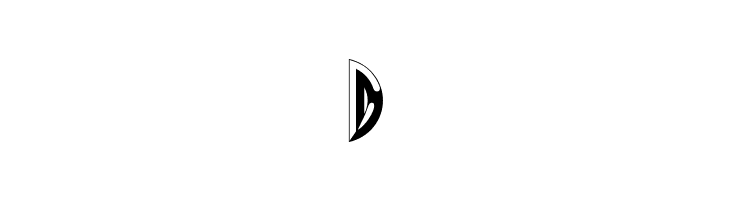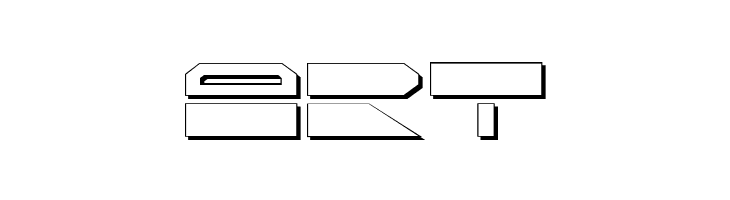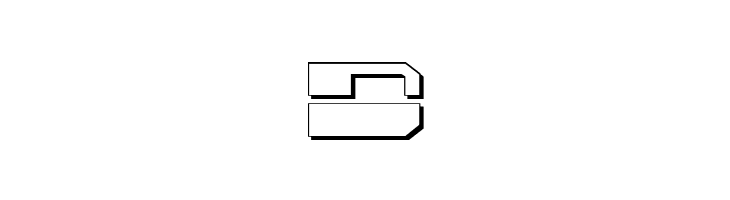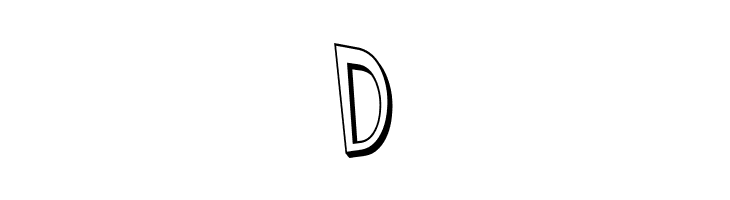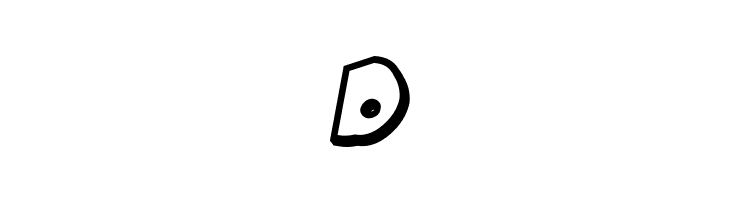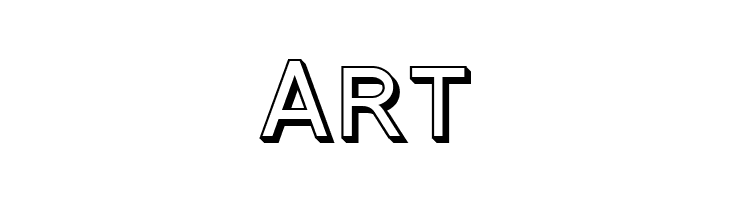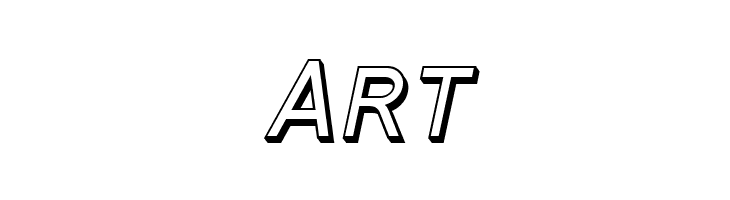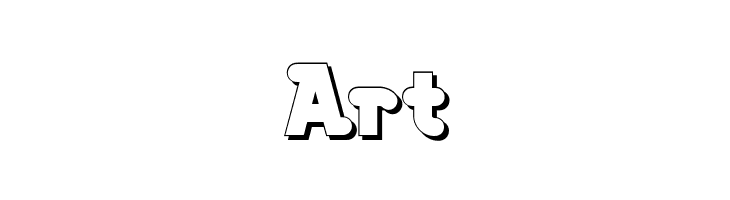
A bold, geometric sans-serif font with a shaded, three-dimensional effect.
A bold, shaded, italic sans-serif font with a modern, three-dimensional look.
A bold, geometric font with a playful, modern aesthetic and three-dimensional effect.
A bold, outlined font with a playful, three-dimensional style.
A bold, decorative font with a three-dimensional shadow effect.
A bold, geometric font with a three-dimensional, faceted design.
A futuristic, geometric font with a three-dimensional shadow effect.
A bold, shaded font with a three-dimensional effect, ideal for striking designs.
A bold, shaded oblique font with a three-dimensional effect.